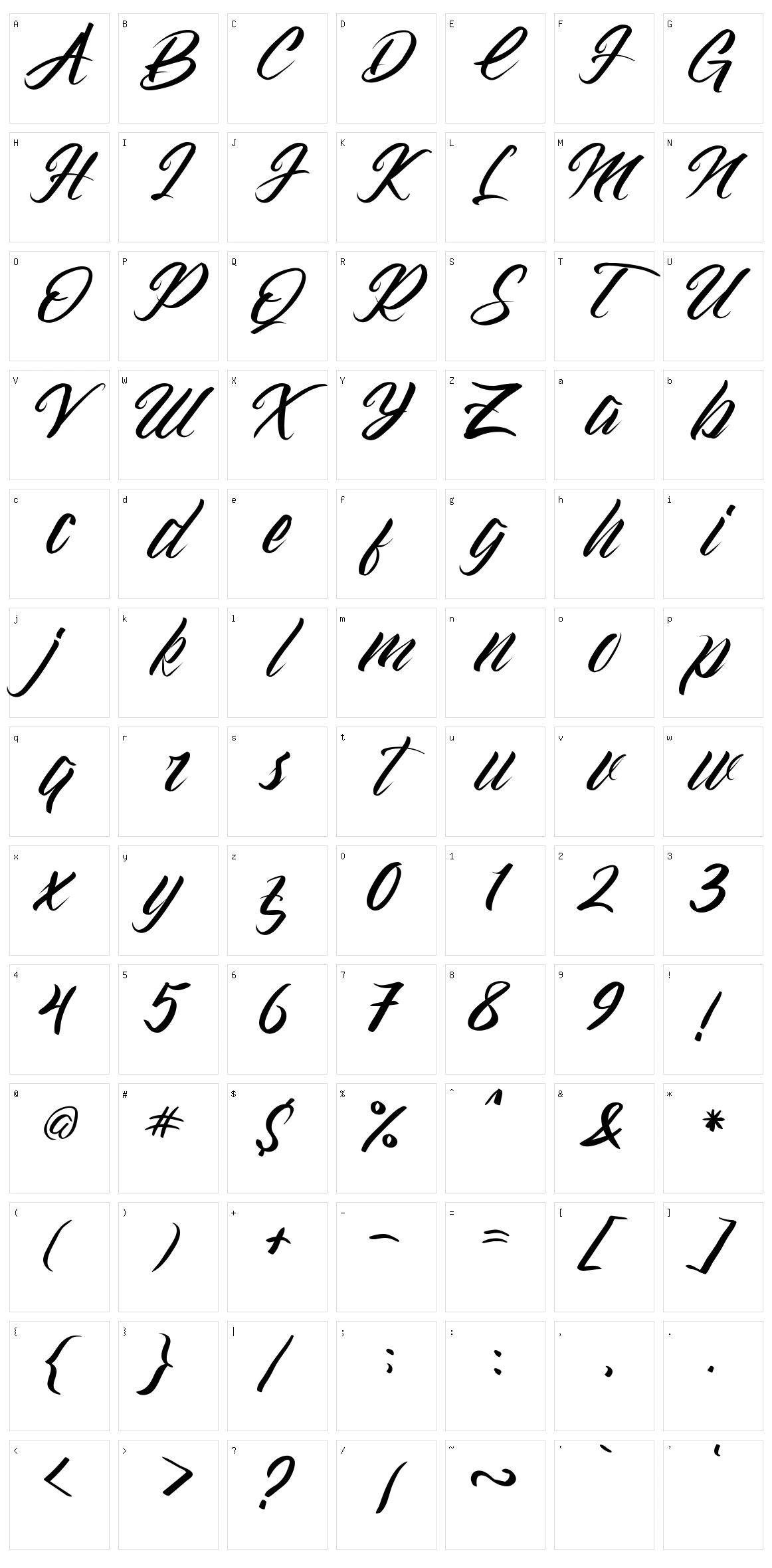
The free font Gramattica is carefully designed by Bayu Pamungkas, showcasing a thoughtful balance of creativity and usability and falls under the Script font style. When you download the ZIP file, it contains only 31.01 KB of font files, making it lightweight and quick to download. Please review the license details below to understand permitted usage and distribution rights. If license information is not available, we recommend using this font for personal projects only or contacting the author directly for commercial usage permissions.